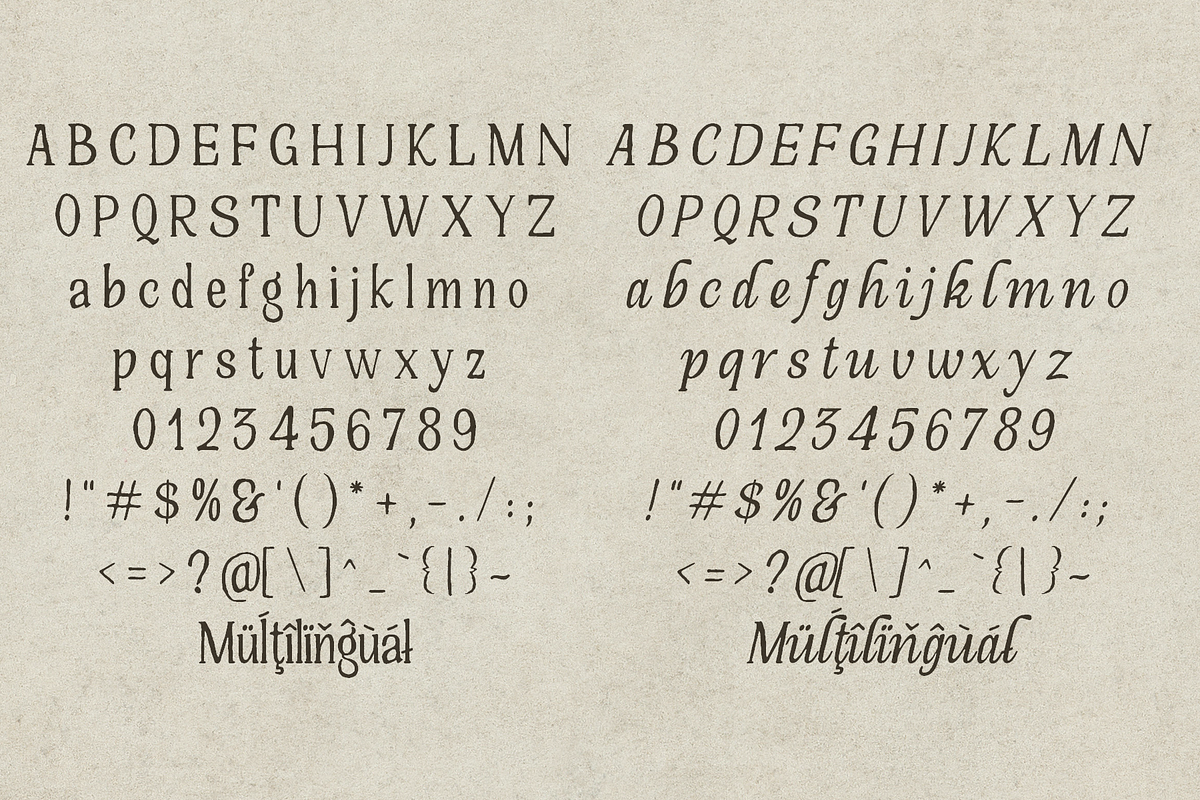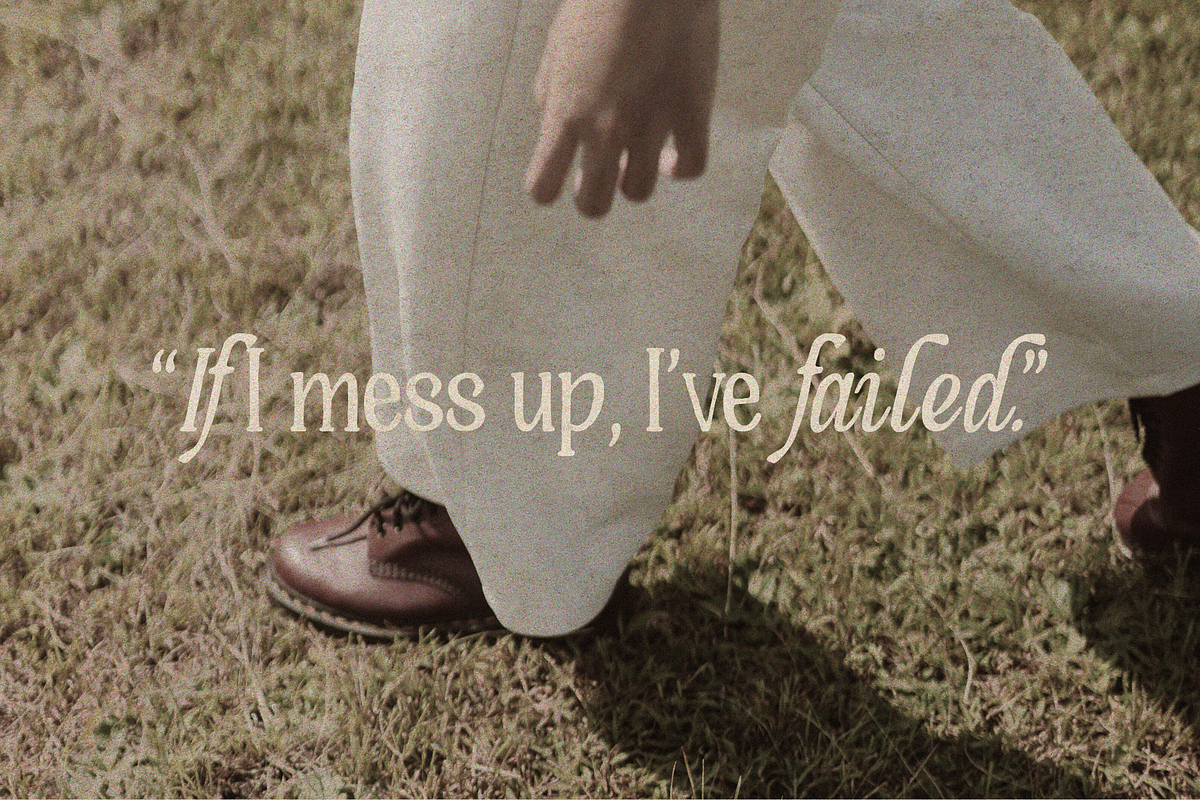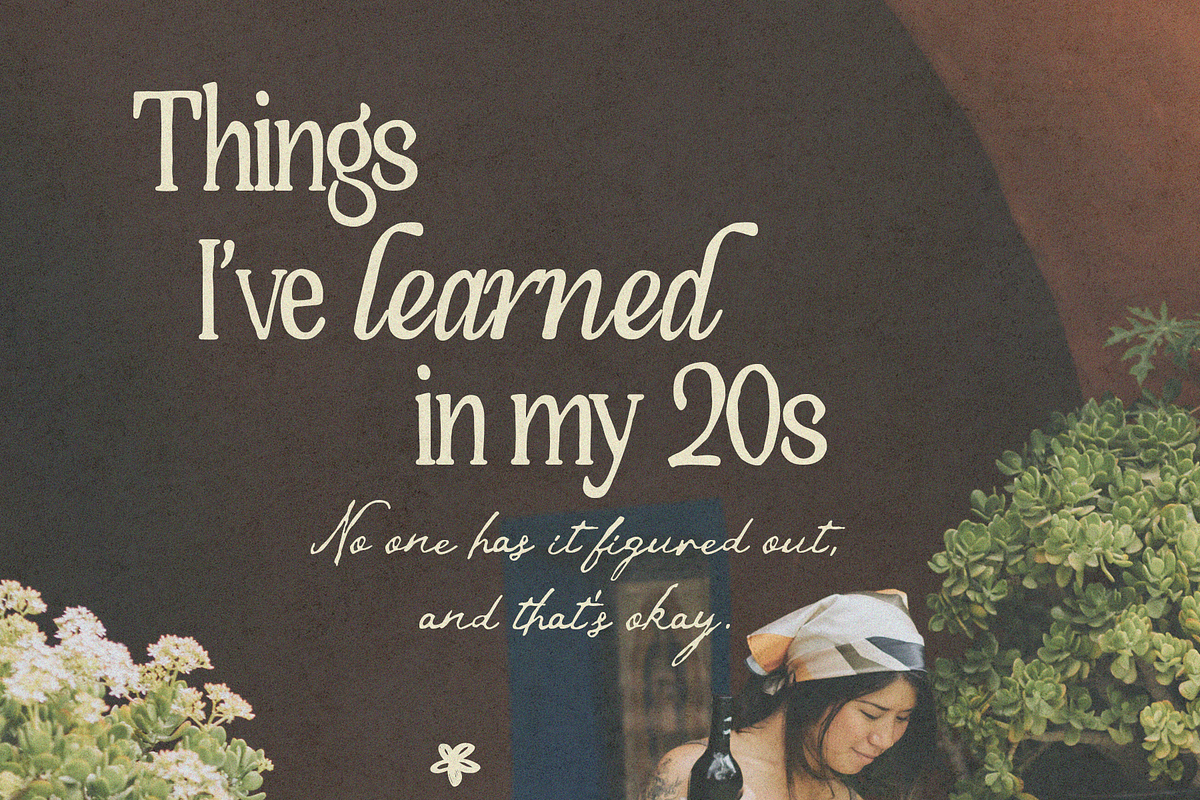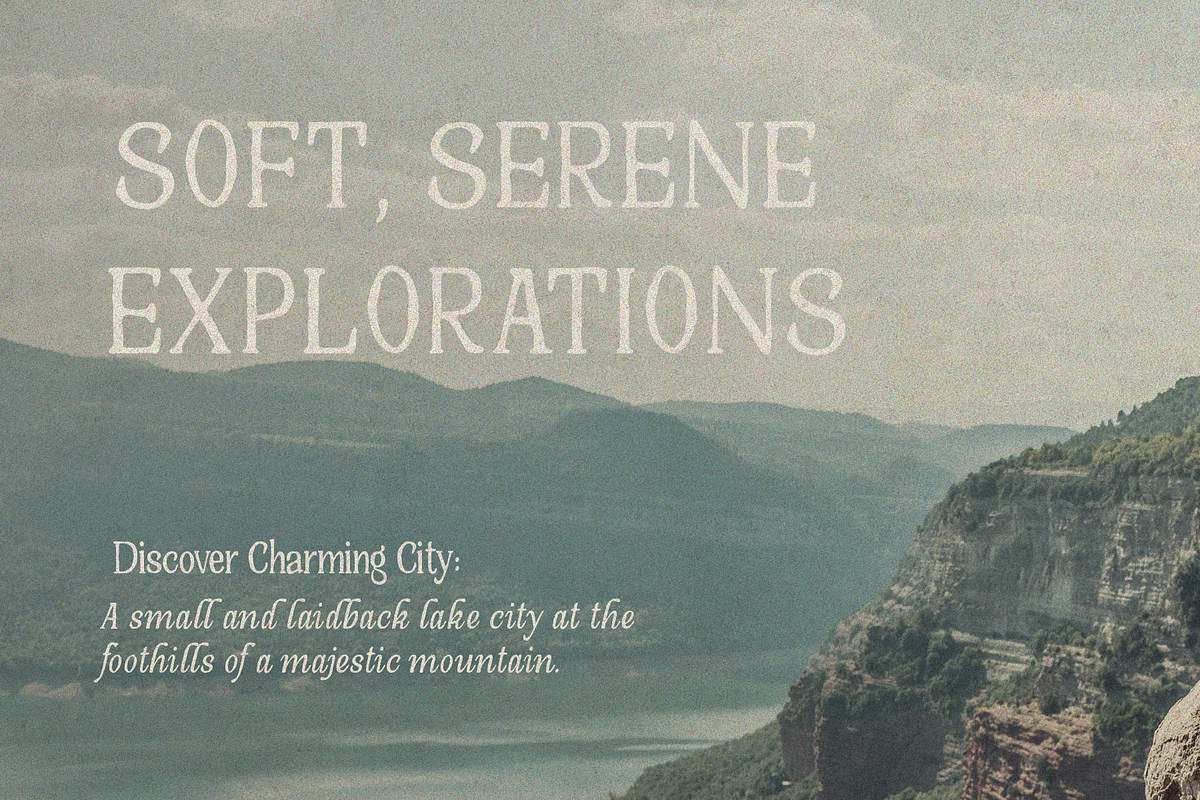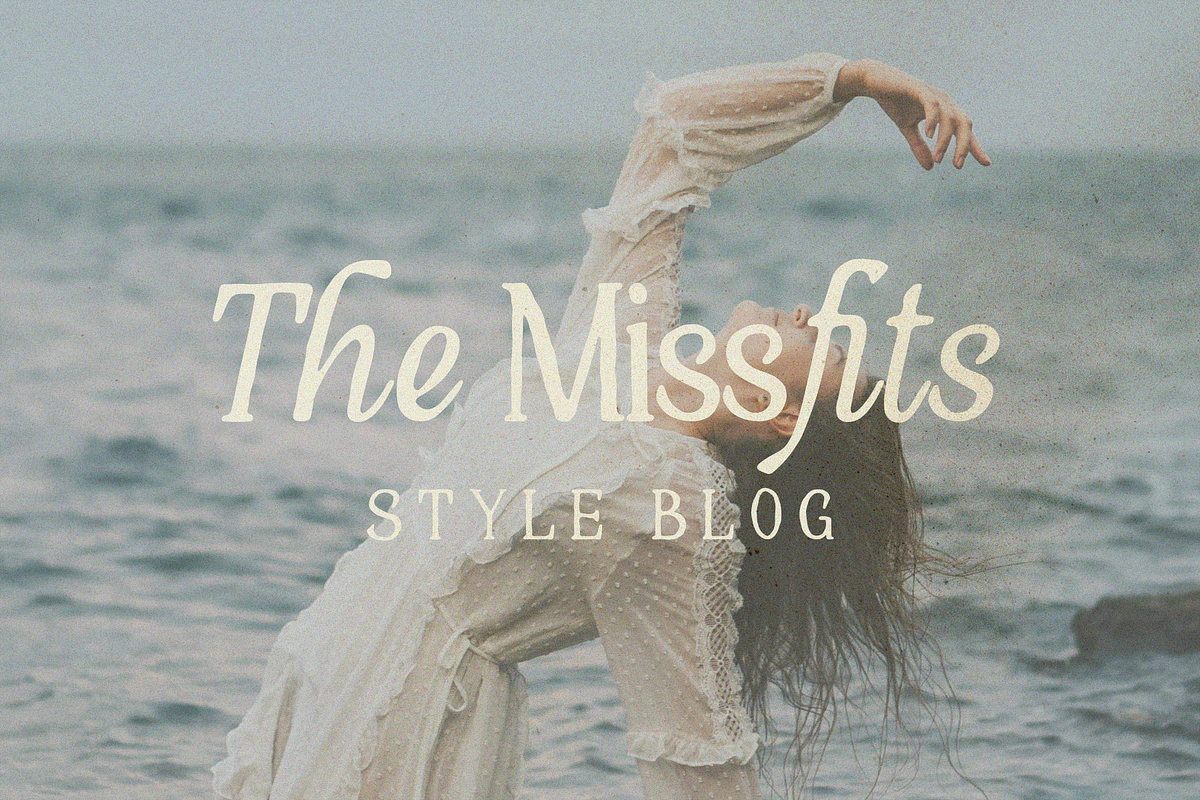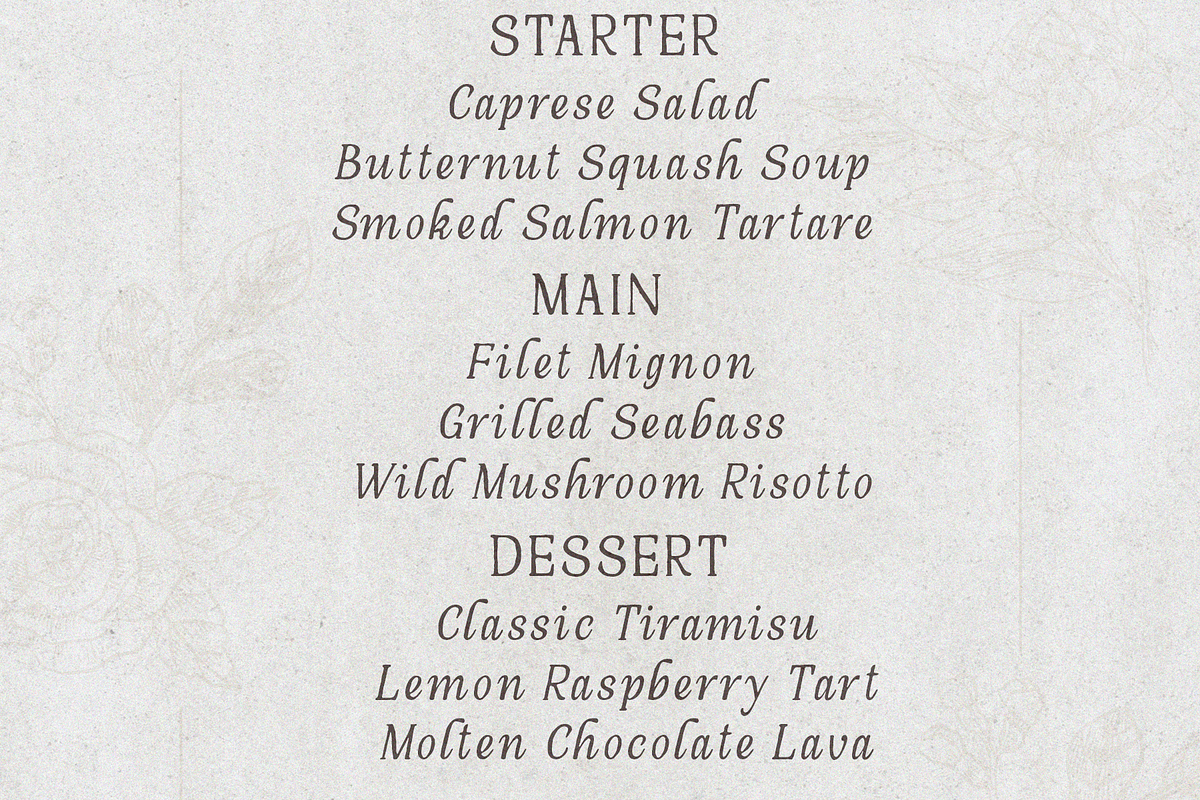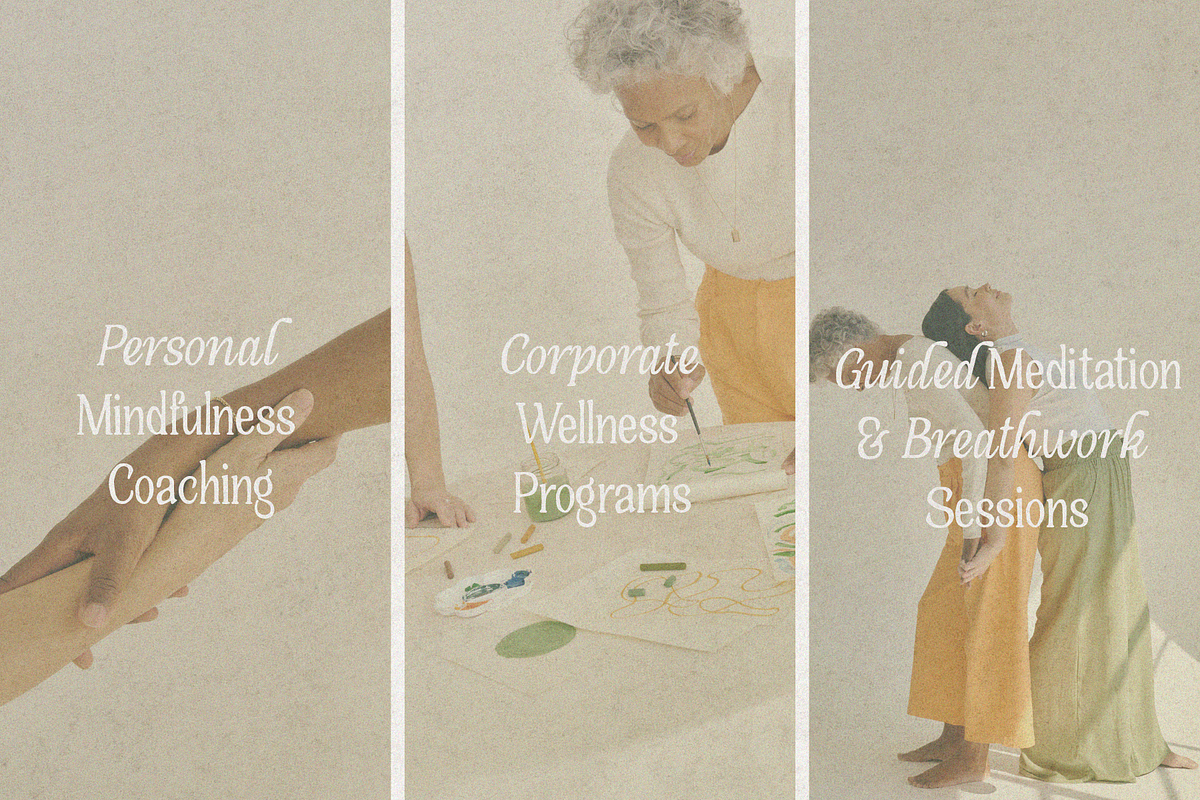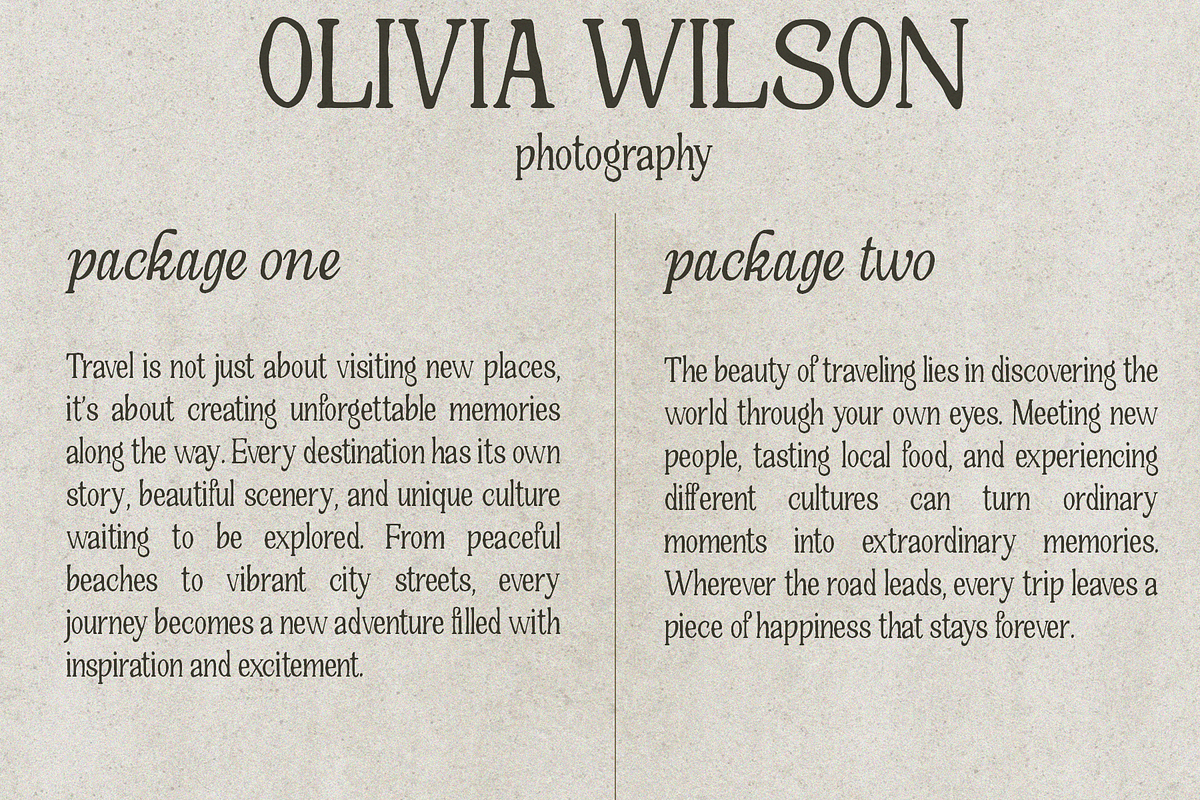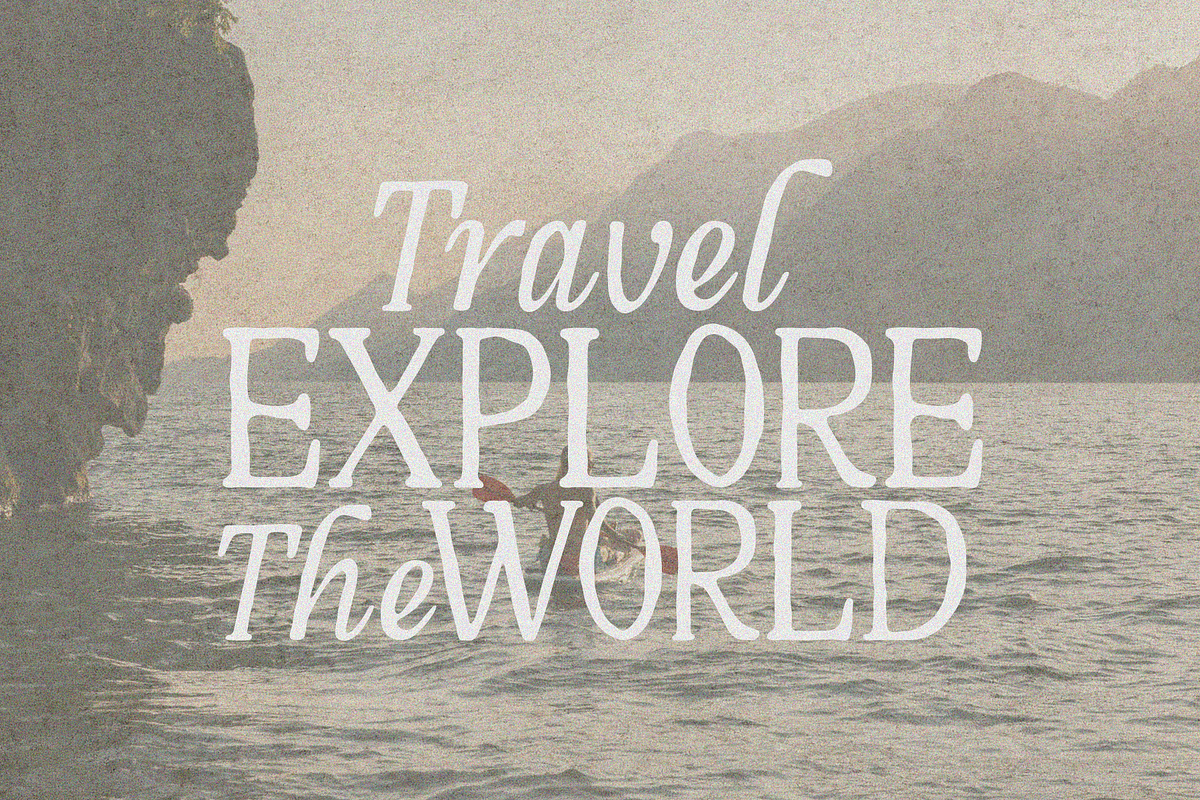
Quedami – Serif Font
Quedami is a graceful serif font that blends timeless elegance with a soft vintage soul. Designed with flowing curves, delicate strokes, and a handcrafted touch, this font brings warmth and charm to every design. Available in both Regular and Italic styles, Quedami works beautifully for branding, wedding invitations, editorial layouts, logos, packaging, social media, and romantic-inspired projects.
\- Character set A-Z
\- Uppercase & Lowercase
\- Numerals & Punctuation
\- Accented Characters (West Europe)